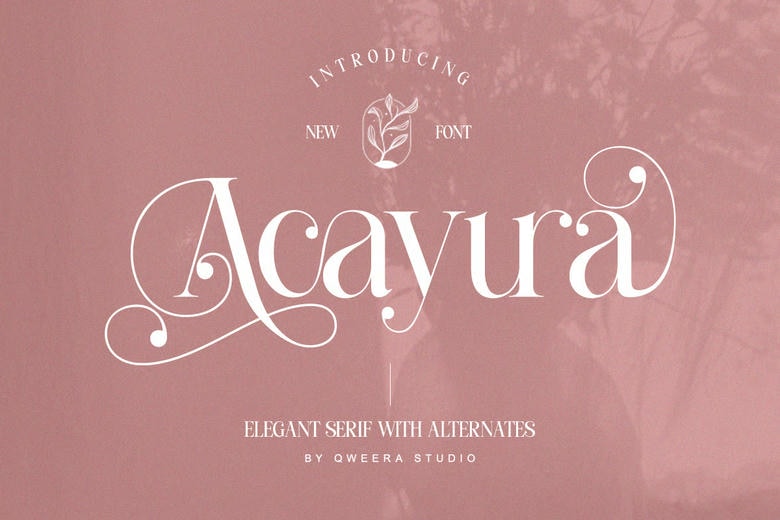
Acayura Font
Acayura is a refined modern serif font with the elegance and style of a classic. With its gentle curves, stylish swashes and versatile alternates, Acayura takes any project to a high-end masterpiece. Its elegant ligatures distinguish it as the ideal serif typeface to be used in branding, editorials, invitations, logos, and elegant packaging. Be it designing wedding stationery or fashion campaigns, Acayura will leave your design with that high quality memorable feel.
Acayura Serif Font